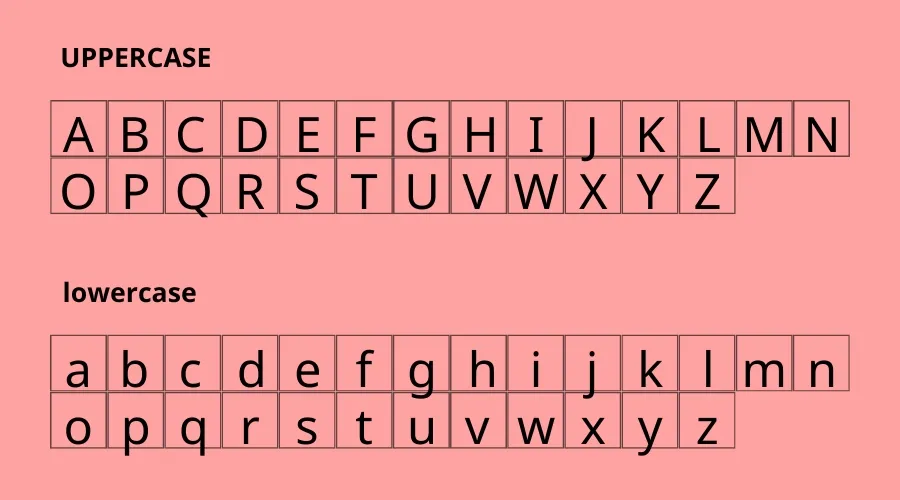
Euro Sans Font
About Euro Sans Font
It is characterized by sharp angles and simple lines, giving it a distinctively modern feel. The key features of Euro Sans are its clarity and readability. This font has an online generator tool, where you may change all your normal types of the alphabet set into stylish and modern shapes.
This font contains various type of styles and weights such as bold, italic, and regular. It includes uppercase letters, symbols, digits, numerals, and punctuations. This font is the perfect choice for both CSS and adobe photoshop.